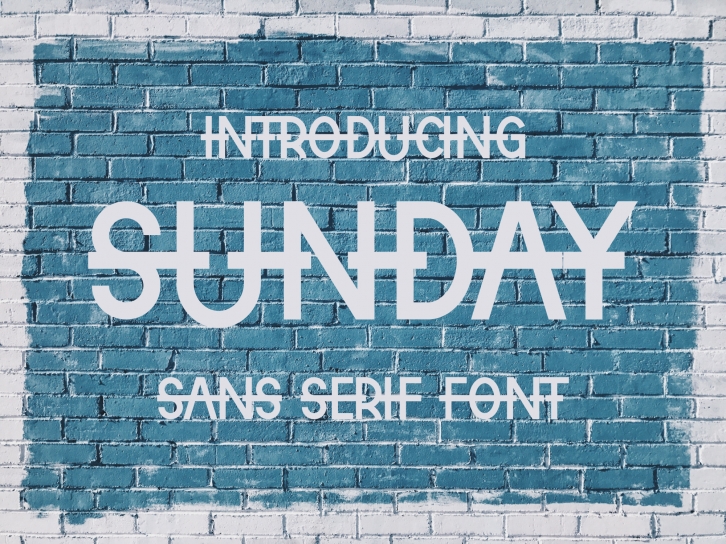
Introducing **Sunday**, a simple roman style sans serif font.
So perfect for you who needs a typeface for logo designs, magazine, social media, brochure, and many more.
**Features**
+ Uppercase
+ Lowercase
+ Numerals